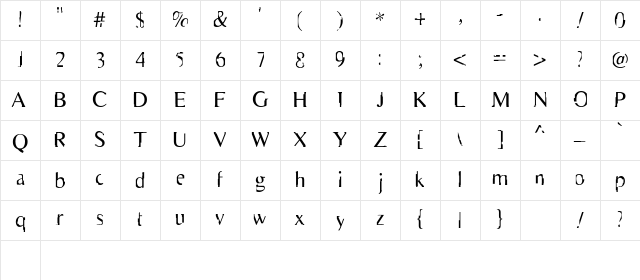
Scarecrow Regular
Design Context for Scarecrow
Scarecrow is a composed and adaptable typeface that performs quietly and consistently across a wide range of design contexts.